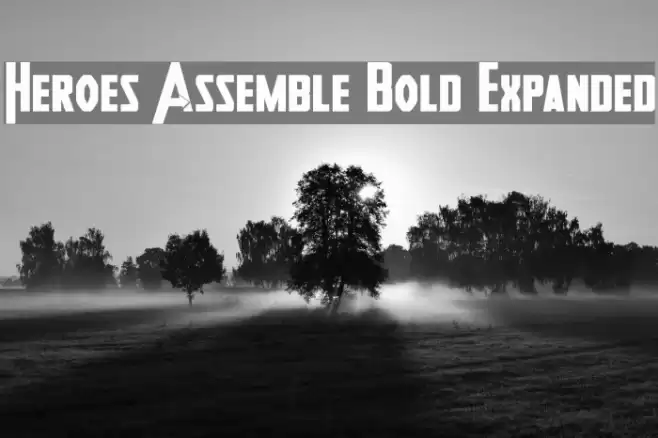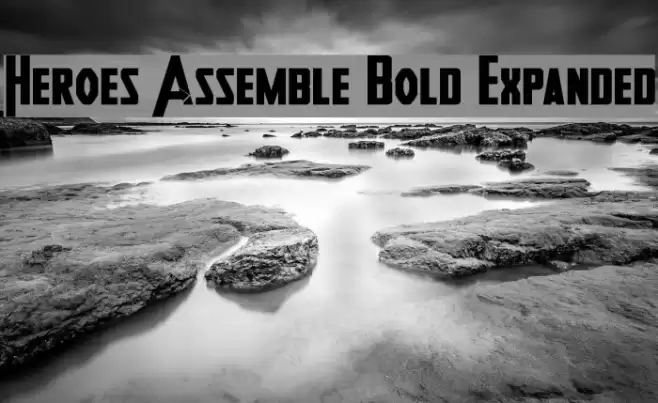
Heroes Assemble Bold Expanded Font
Heroes Assemble Bold Expanded Description
This font features a bold and expanded style with strong geometric shapes and sharp angles. The uppercase letters are particularly striking, with a sense of power and authority, making it ideal for impactful headlines. The characters are evenly spaced, providing a balanced and cohesive look. The numbers and special characters maintain the same boldness, ensuring consistency across all text elements. Its design is reminiscent of superhero themes, conveying strength and dynamism.
A bold, expanded font with geometric shapes and sharp angles, perfect for impactful headlines from Uncategorized fonts.
- Proposed Projects: Ideal for superhero-themed posters, comic book covers, video game titles, and branding that requires a strong, dynamic presence.